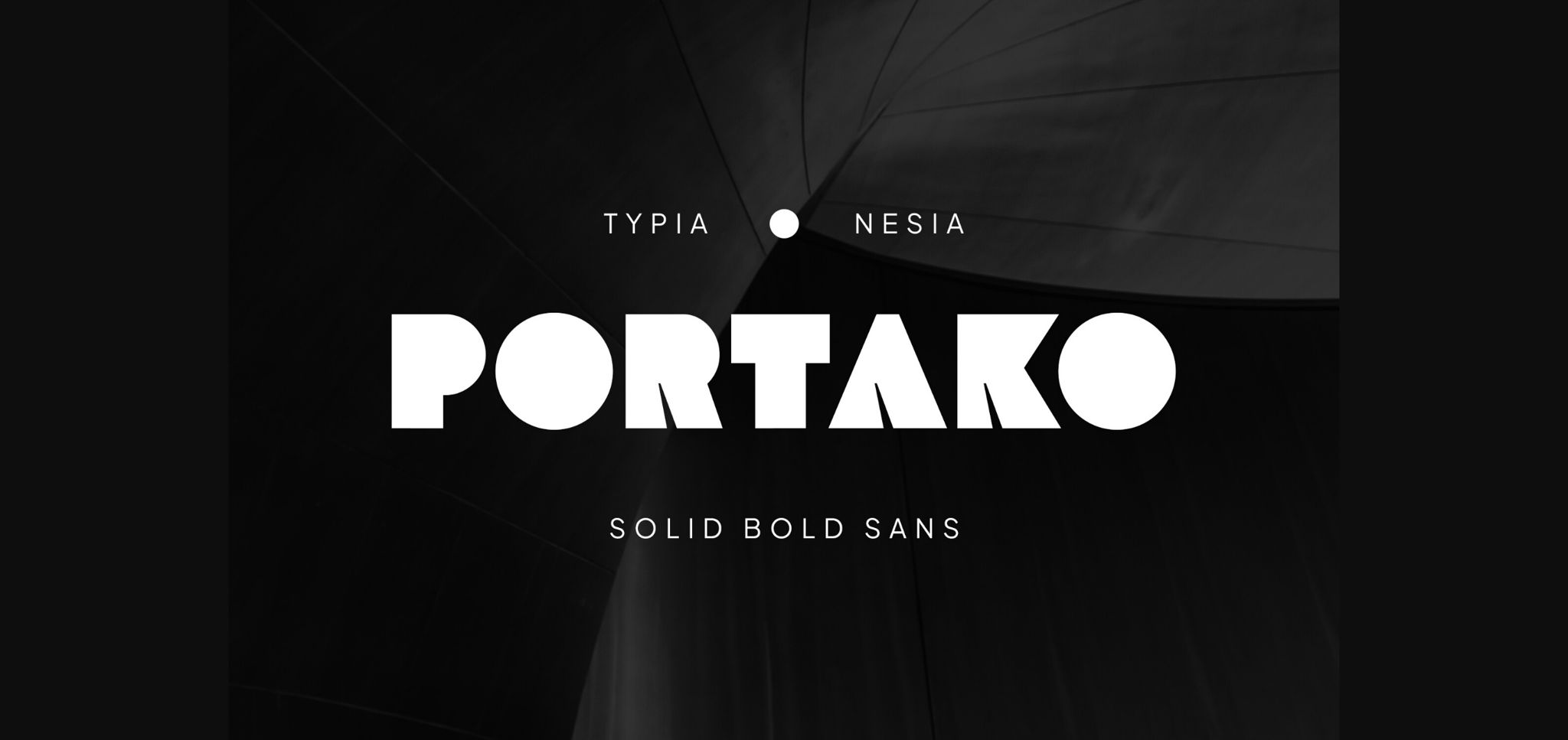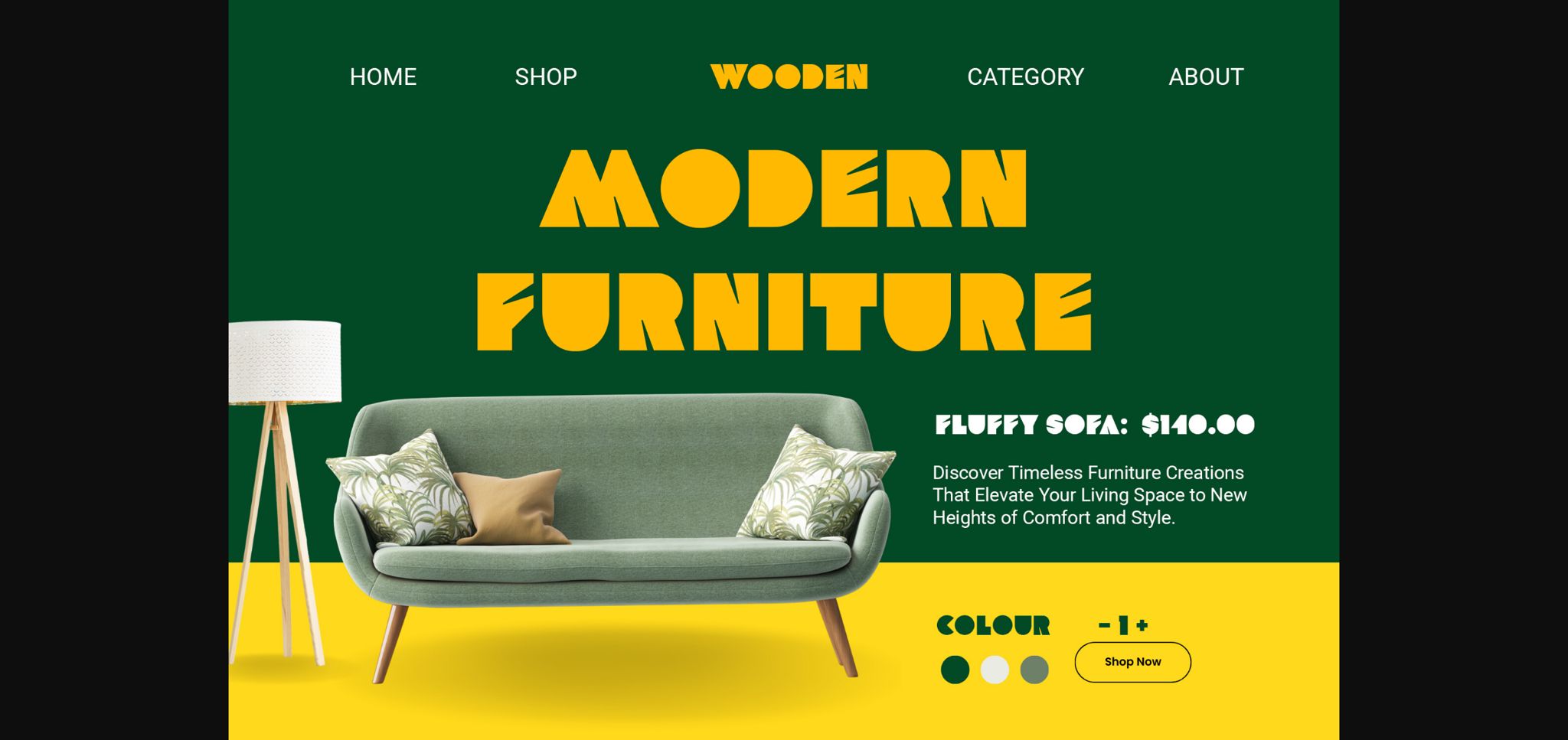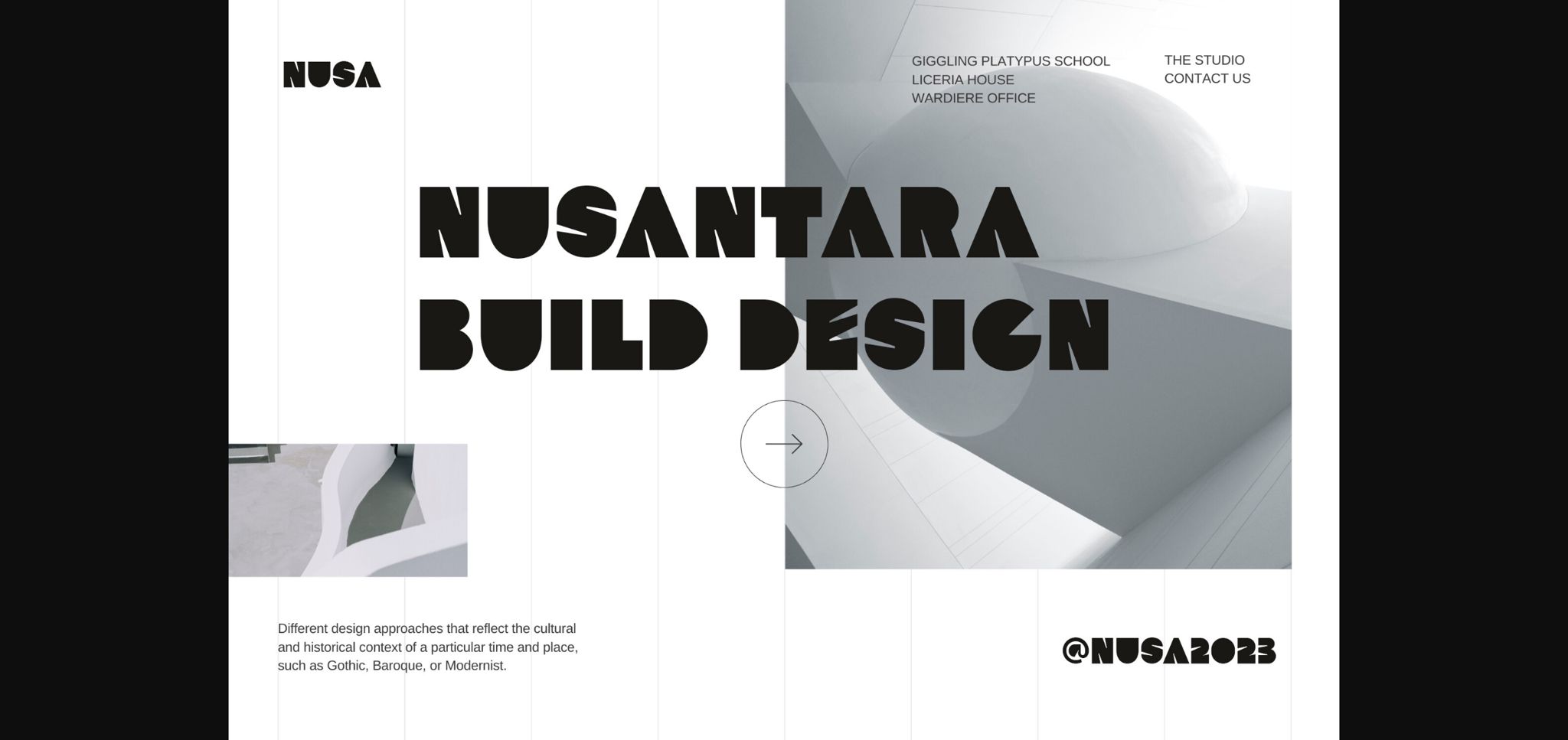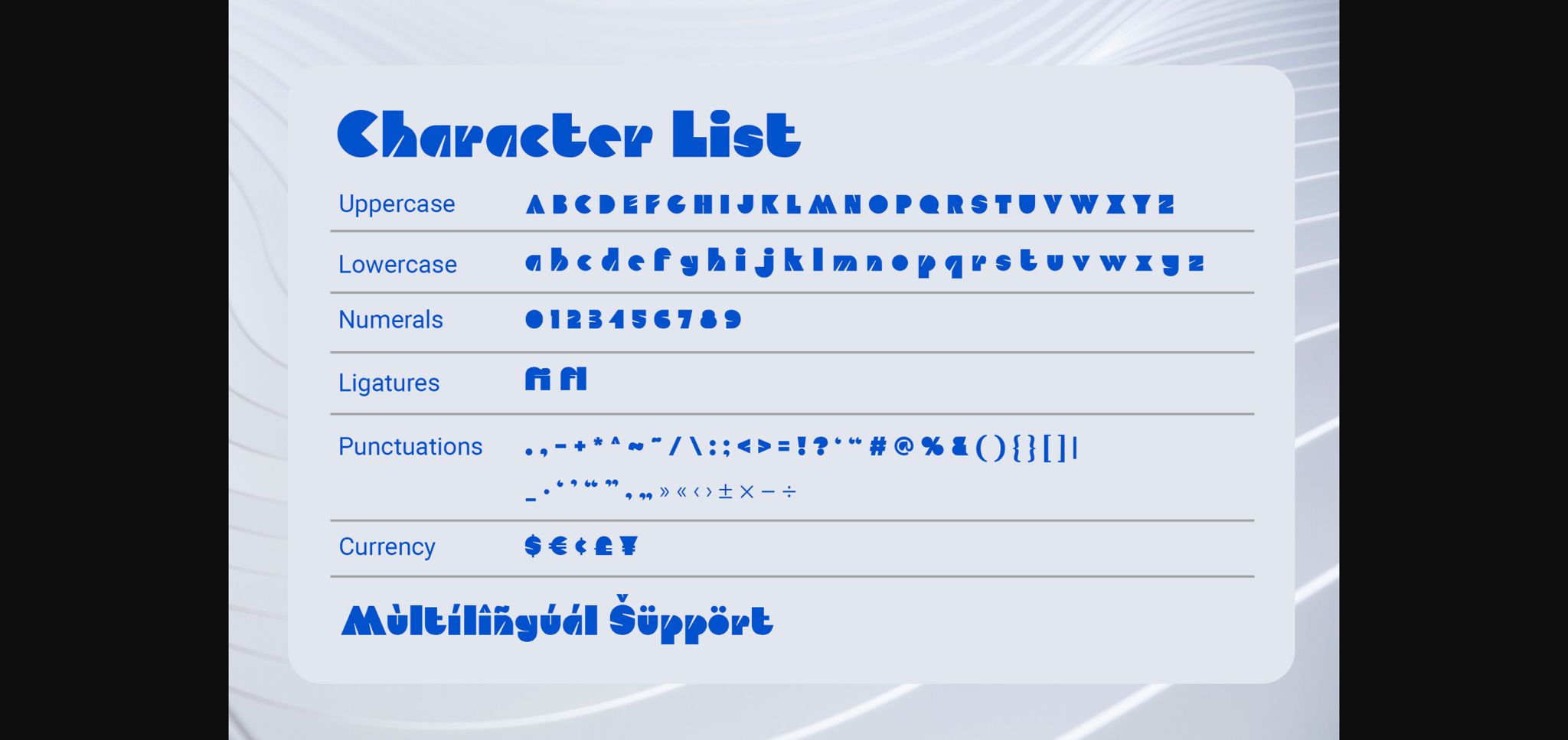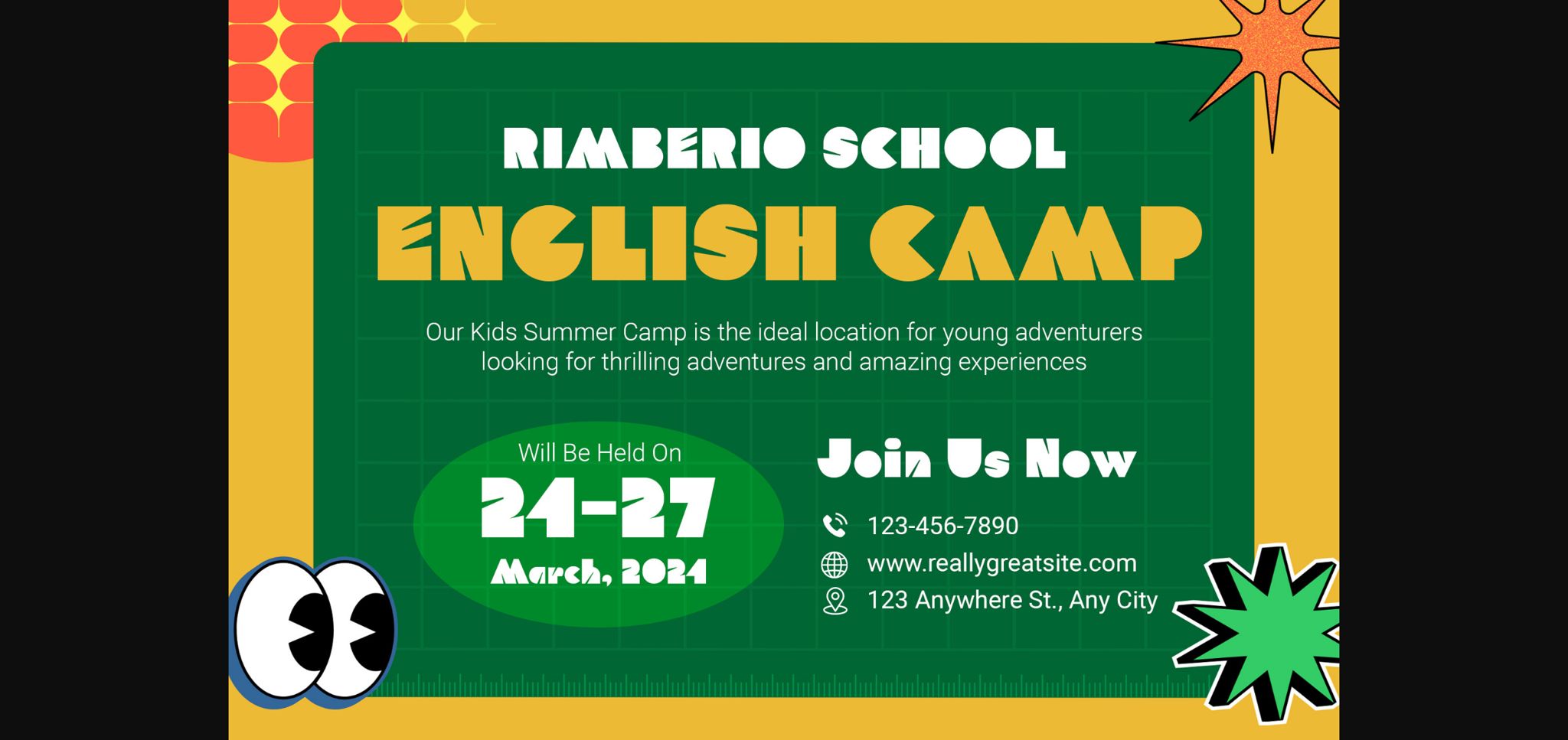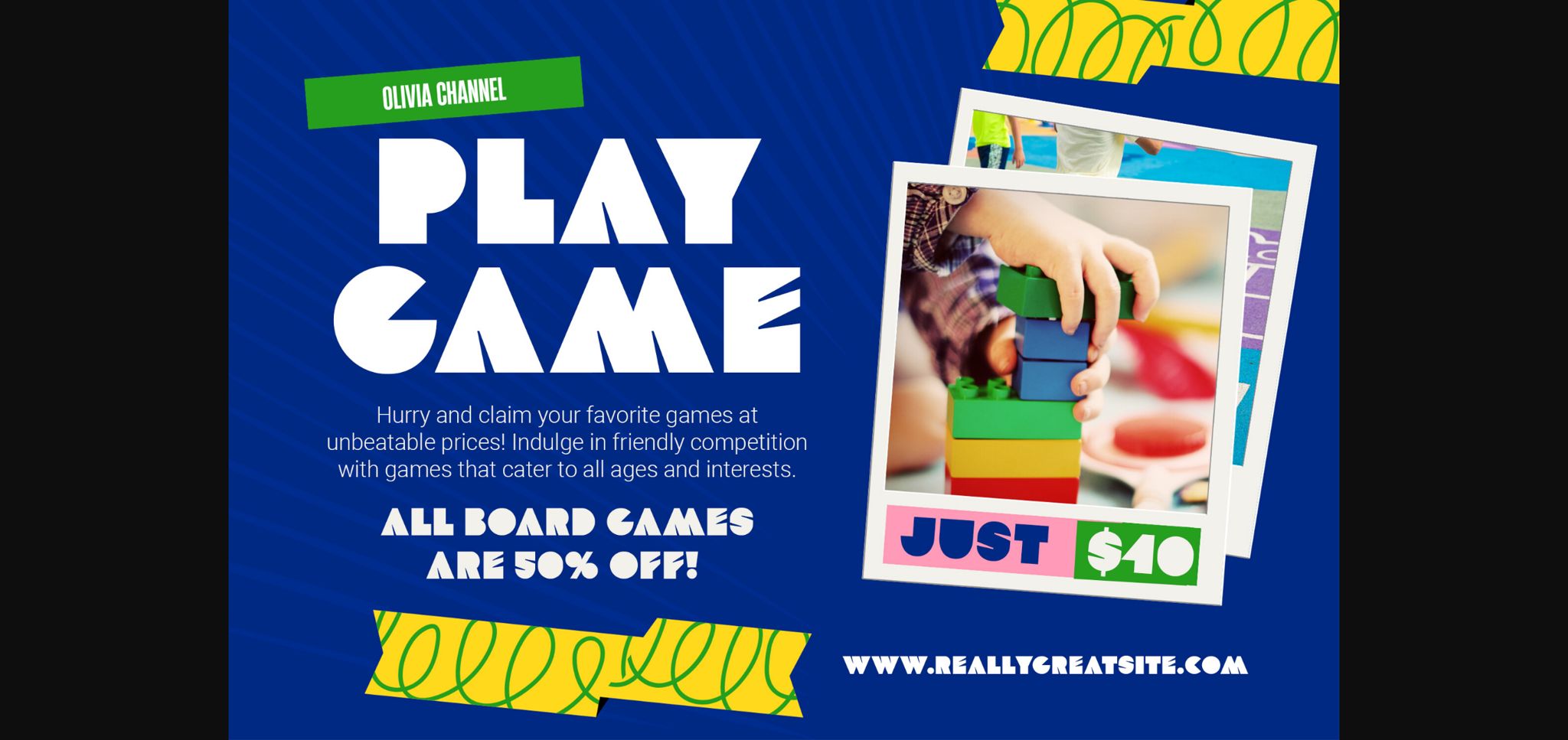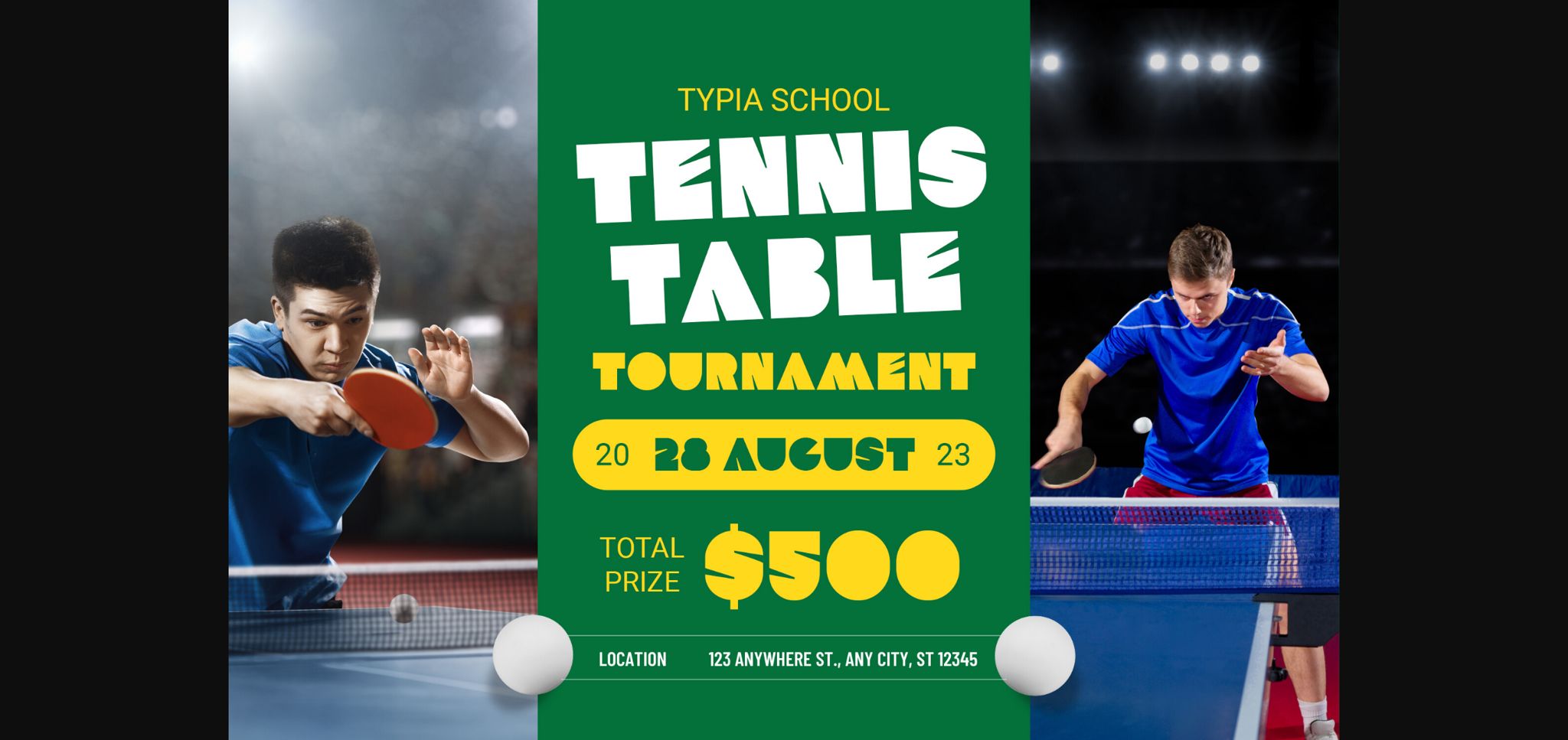
Portako Font
About Portako Font
Portako embodies a Solid Bold Sans design, presenting a modern and impactful aesthetic. Its clean lines and bold presence make it versatile for a variety of applications.